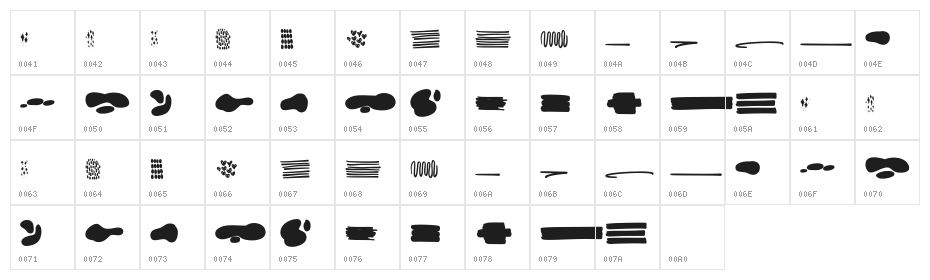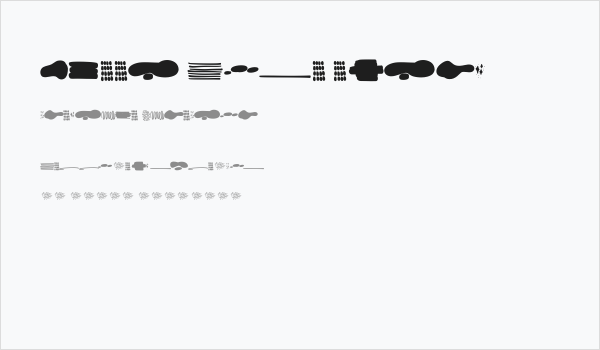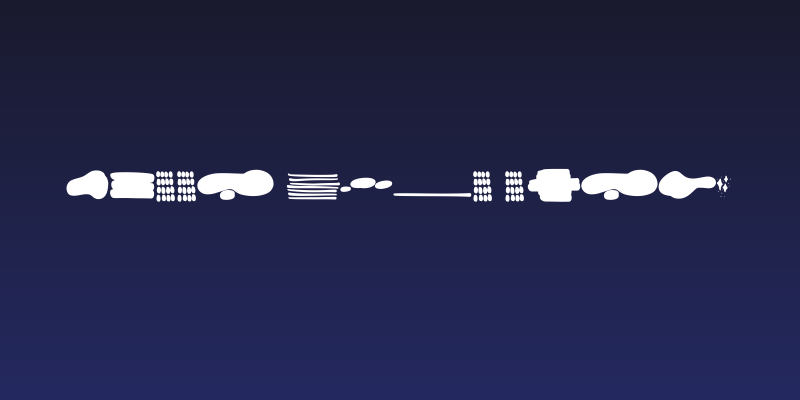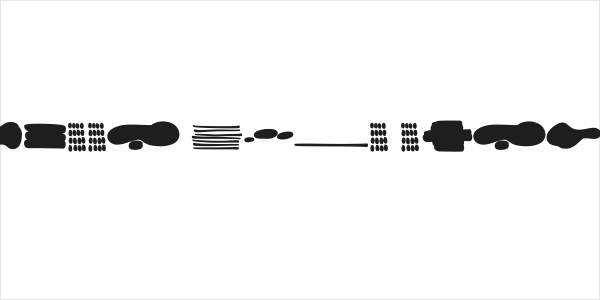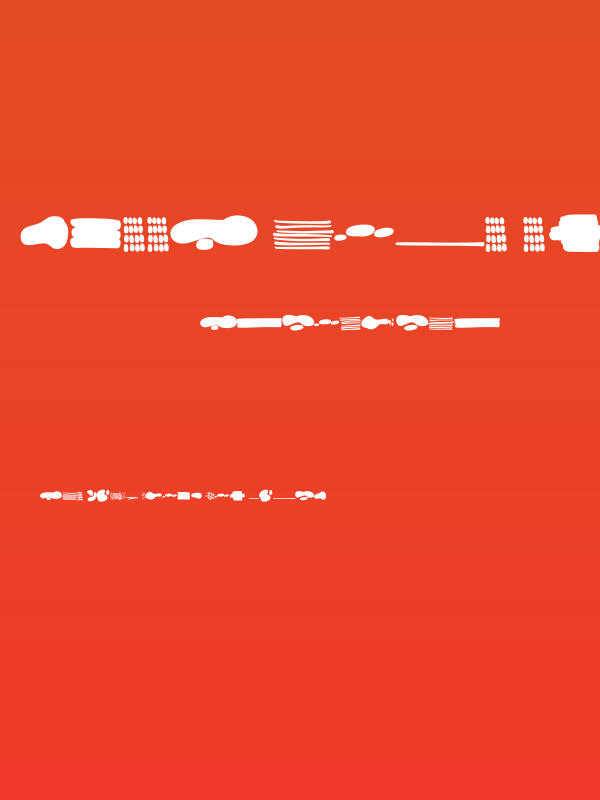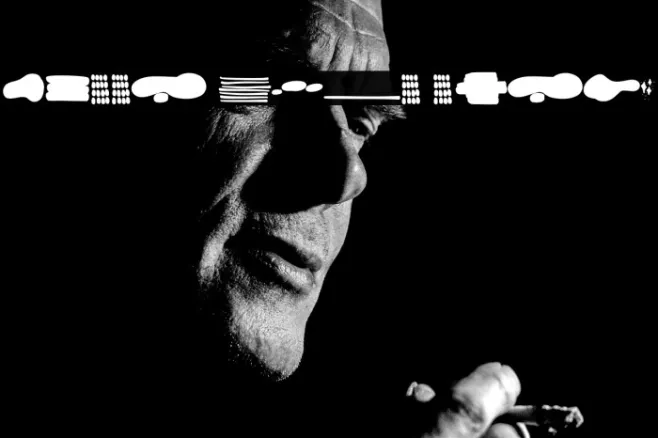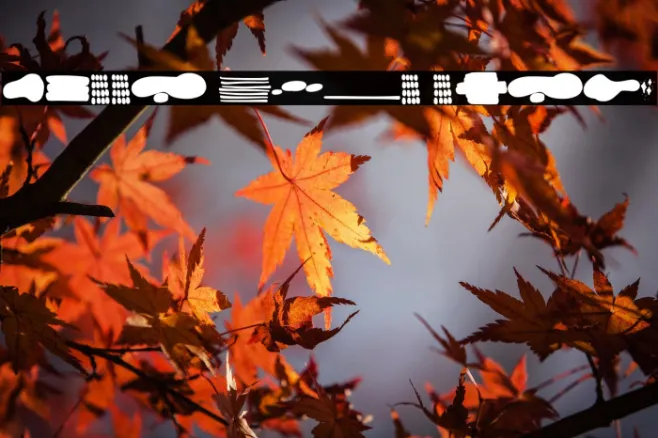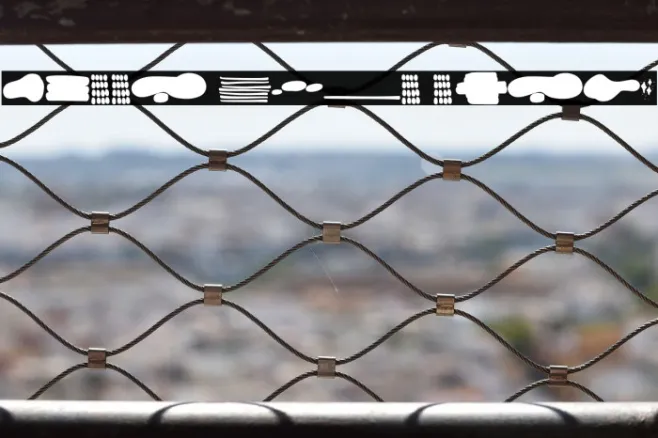
Sweet Home Extra Font
Sweet Home Extra Description
This design features a collection of abstract, decorative elements that resemble a series of artistic brush strokes and patterns. The elements are varied, with some appearing as dotted textures, others as linear strokes, and some as bold, irregular shapes. The overall look is highly creative and unconventional, making it suitable for artistic and decorative purposes. The design does not follow traditional font structures and instead offers a unique visual experience, emphasizing creativity and artistic expression.
| Overall Style | Artistic, Abstract |
| Use Case | Decorative elements, Art projects |
| Proposed Projects | Ideal for use in artistic projects, graphic design, decorative elements, or as part of an art installation. |